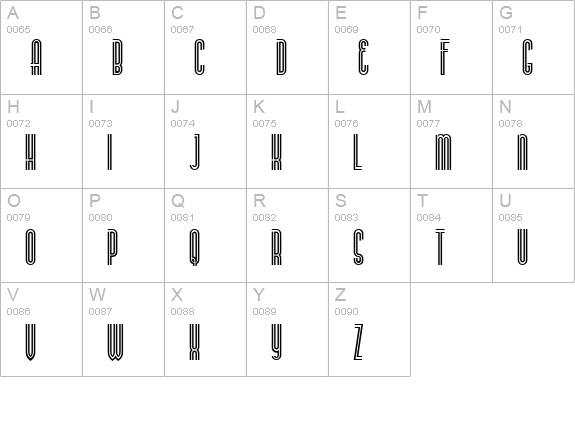
BuenosAiresNF Font Details
Introducing BuenosAiresNF, a stunning and versatile font that captures the essence of the vibrant city it is named after. With its sleek lines and modern flair, BuenosAiresNF is the perfect choice for any design project that requires a touch of sophistication and elegance. This font is not only visually appealing, but also incredibly easy to read, making it suitable for a wide range of applications. Whether you're designing a website, creating a logo, or working on a print project, BuenosAiresNF will help you achieve professional results with ease. The best part? BuenosAiresNF is completely free to download at FontsMarket.com. Yes, you read that right - you can get your hands on this beautiful font without spending a dime. So why wait? Download BuenosAiresNF today and elevate your designs to a whole new level of style and sophistication.